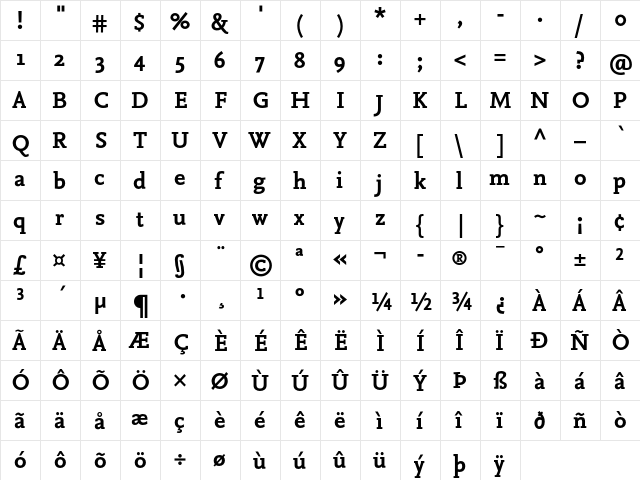
NexusMix-Bold Regular
Design Context for NexusMix-Bold Typeface
NexusMix-Bold takes a measured approach to typography — its balanced proportions and neutral character make it a reliable workhorse for both digital and print work. Its bold stroke weight gives it real presence on the page.